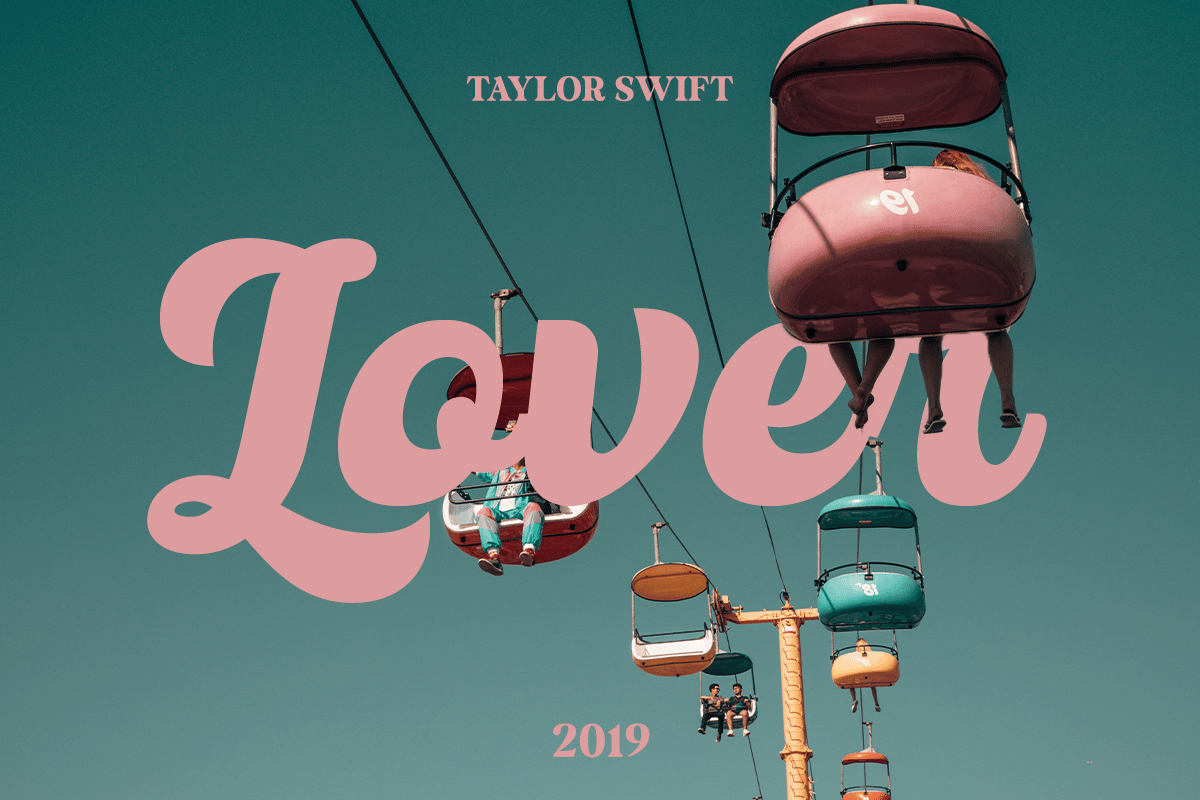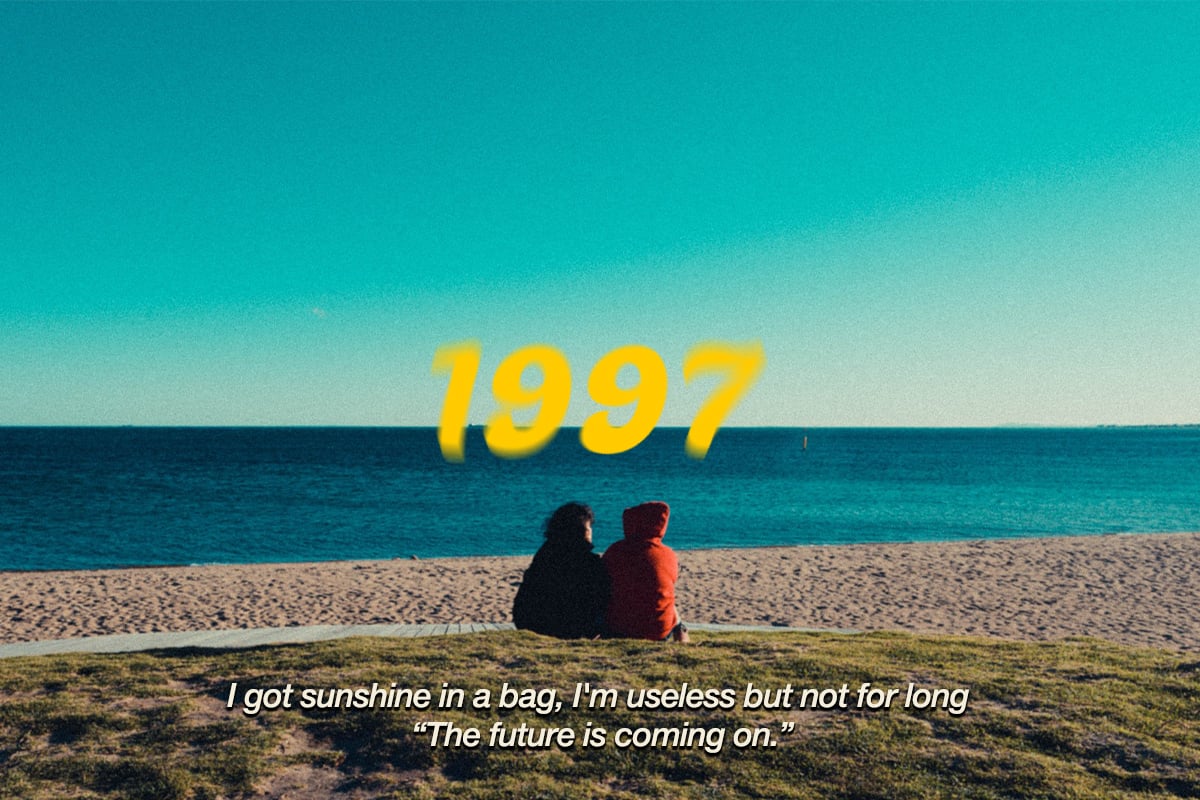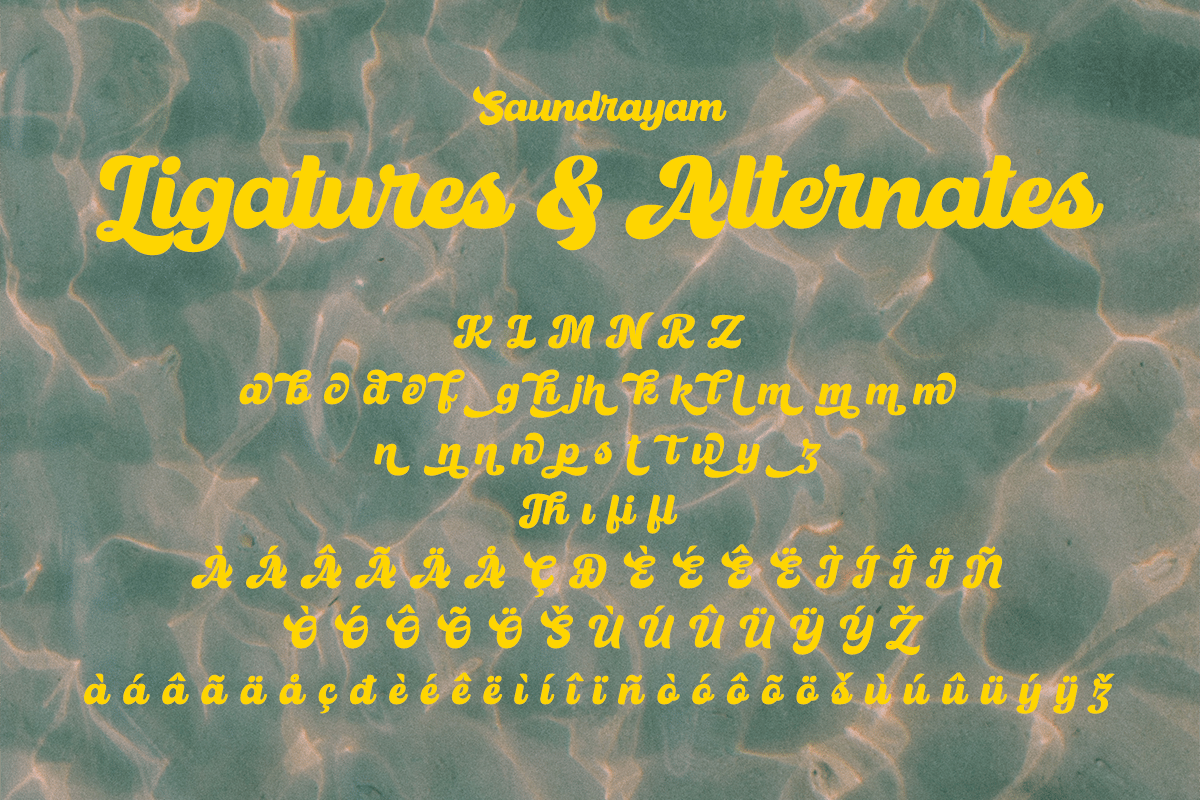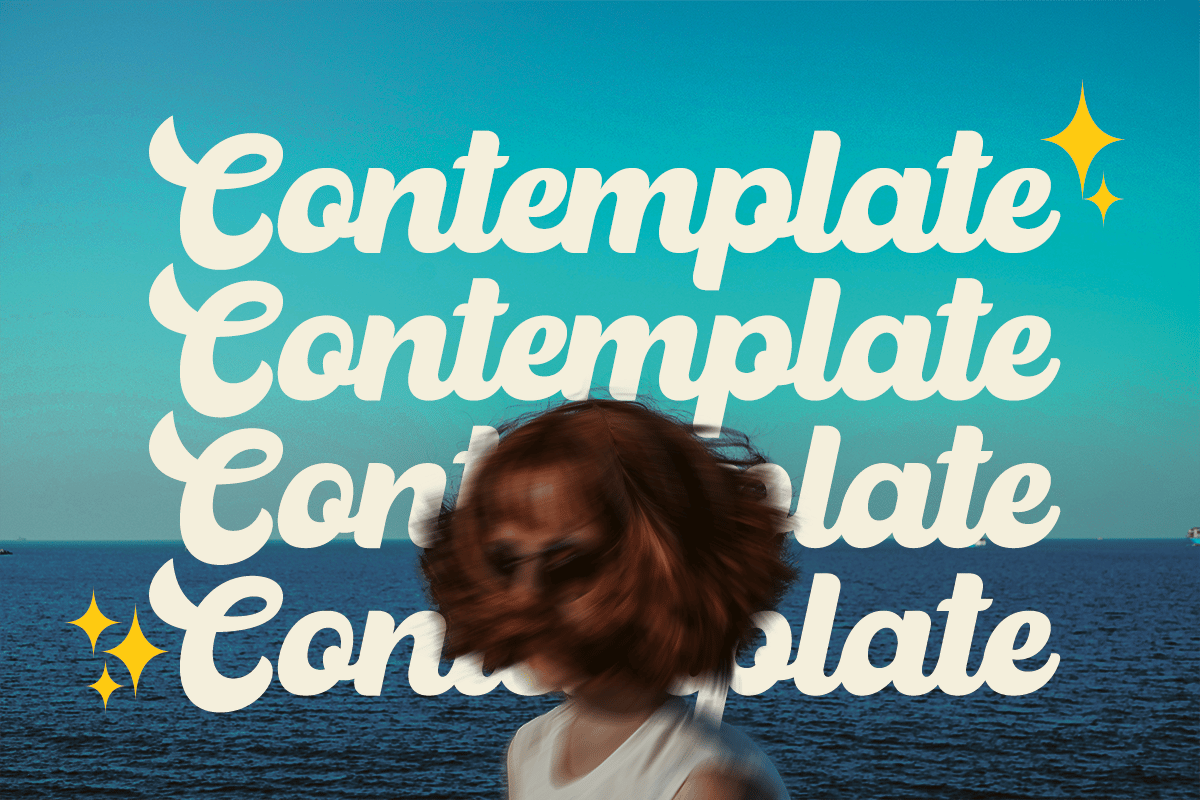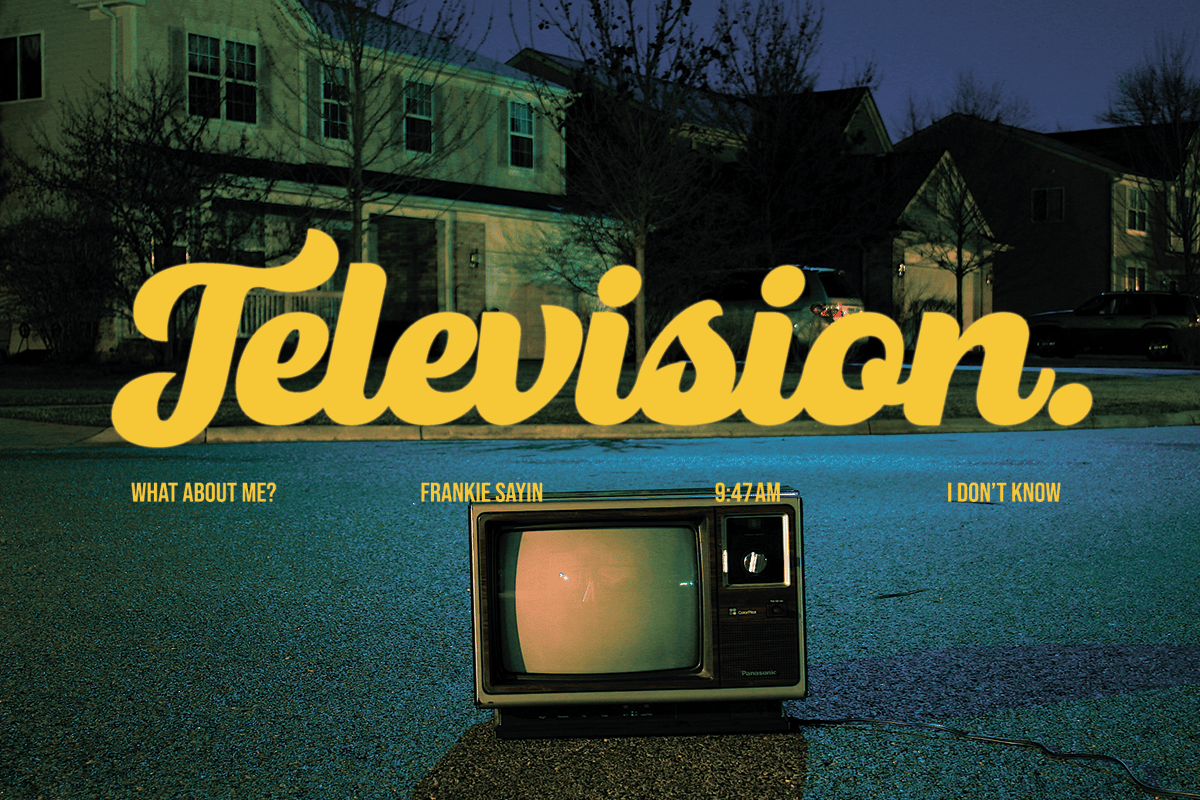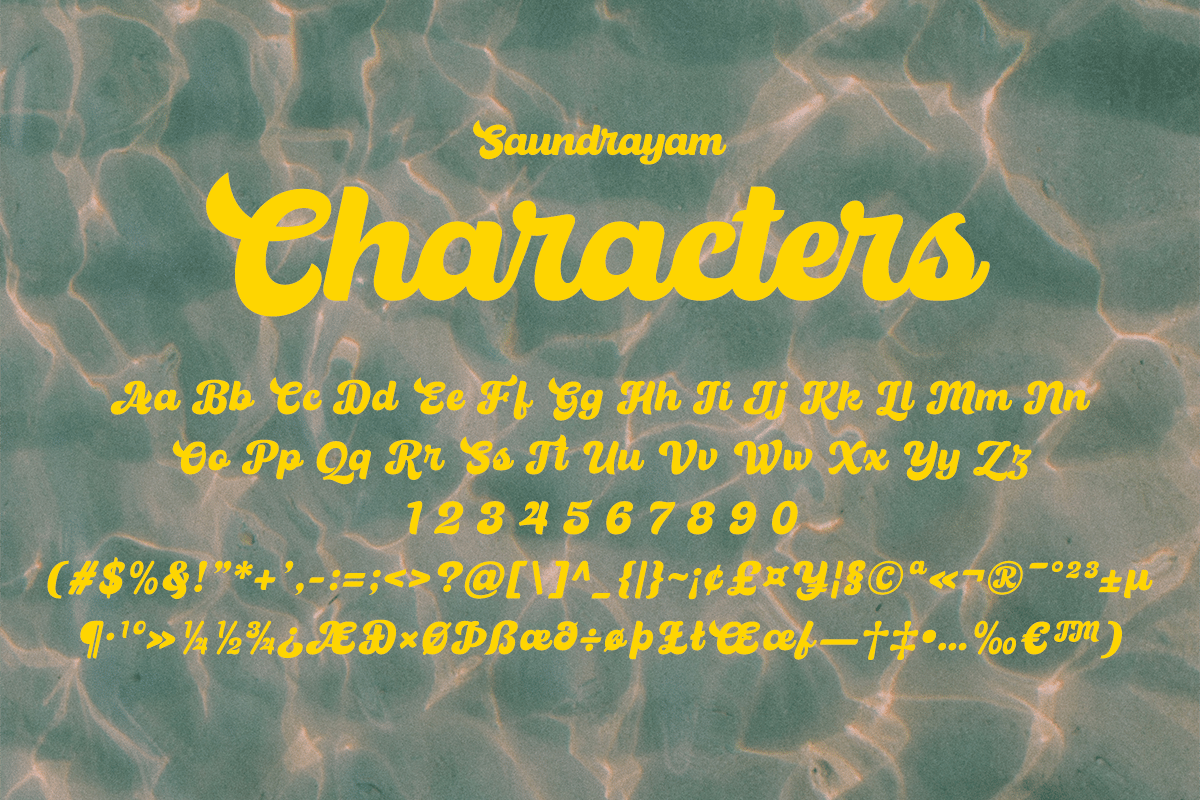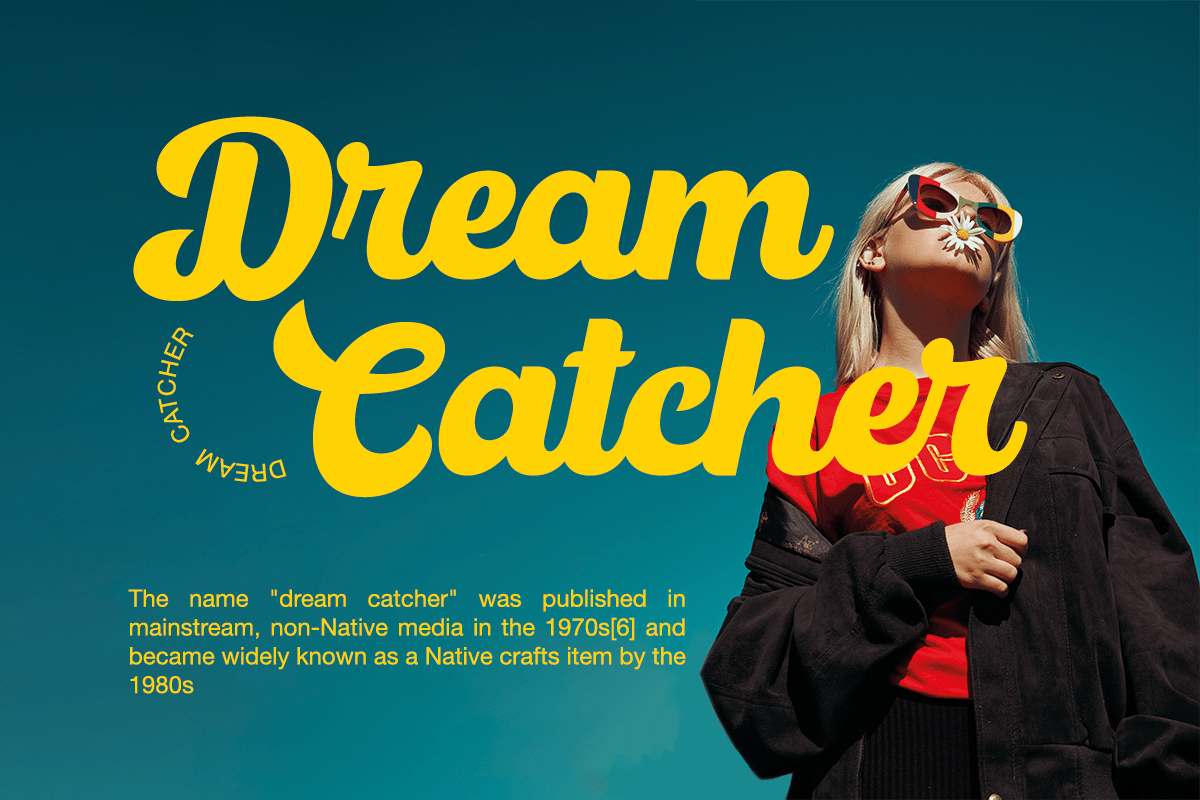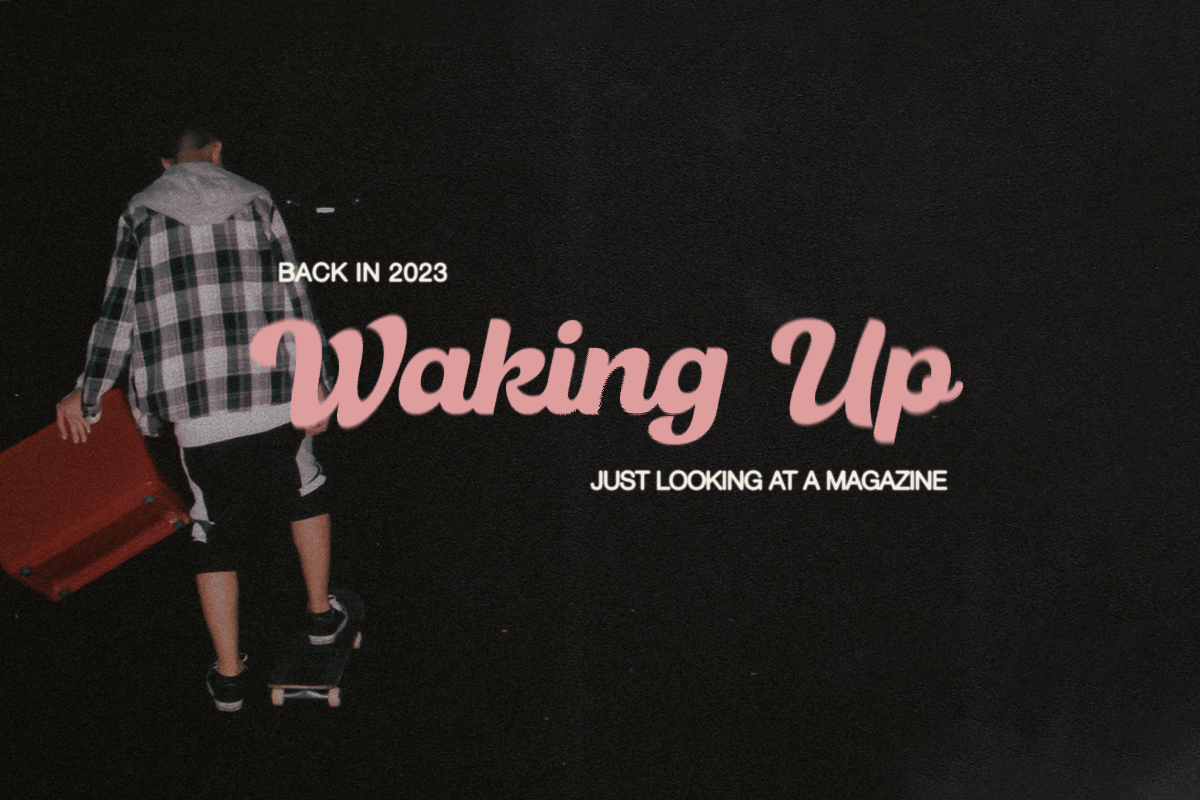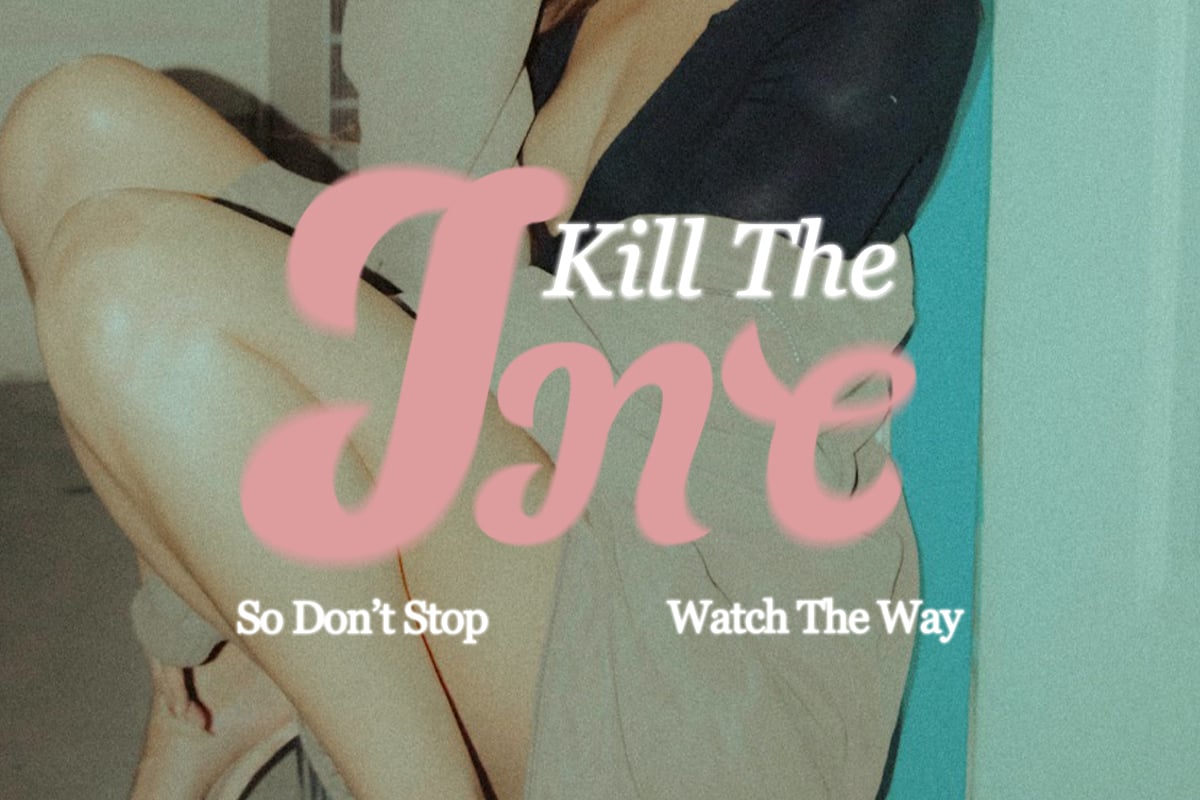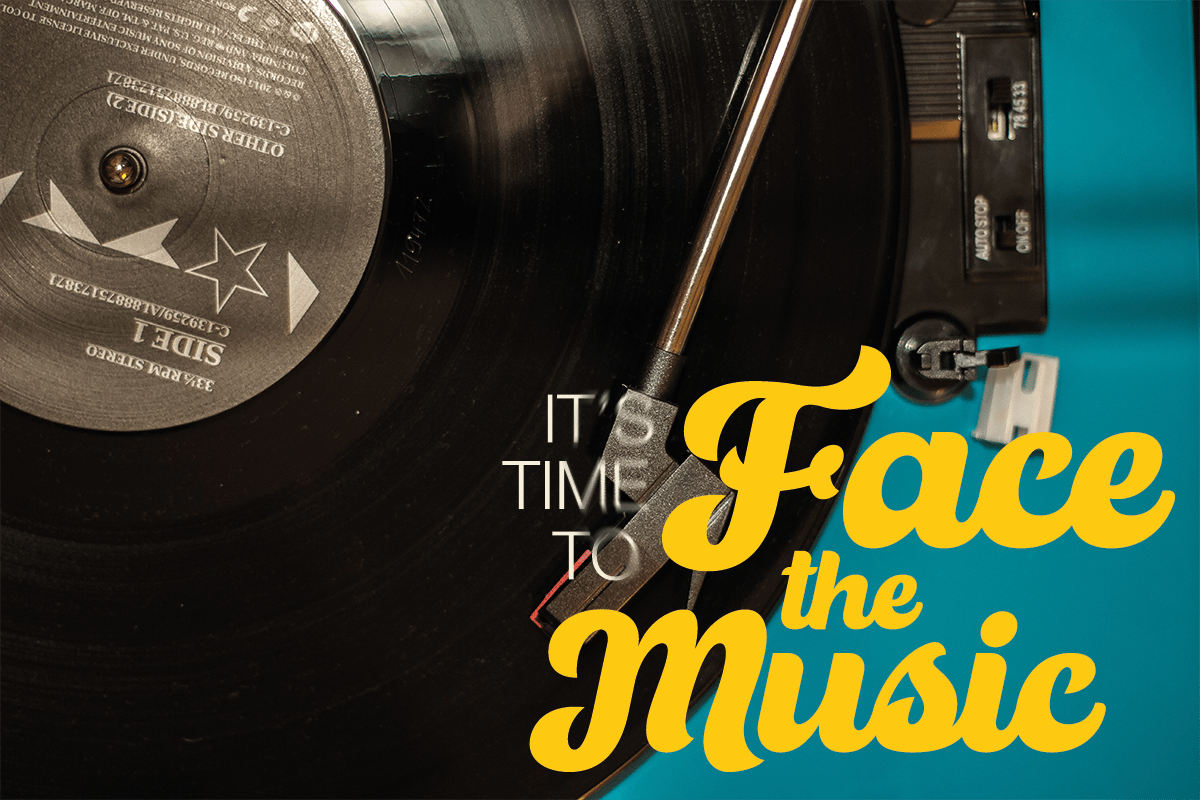
Saundrayam – Retro Script Font
Saundrayam is Retro Display Font. This typeface is perfect for various purposes such as Magazine Title,
Poster, Logo, T-Shirt, Sub Title, Business cards, Magazines, Book Covers, Wedding Invitations,Templates Instagram Story Post, Greeting Cards, Quotes, etc.
Saundrayam Features:
- Accented characters